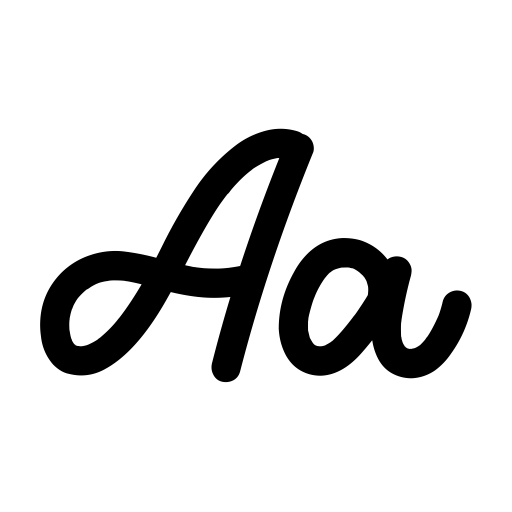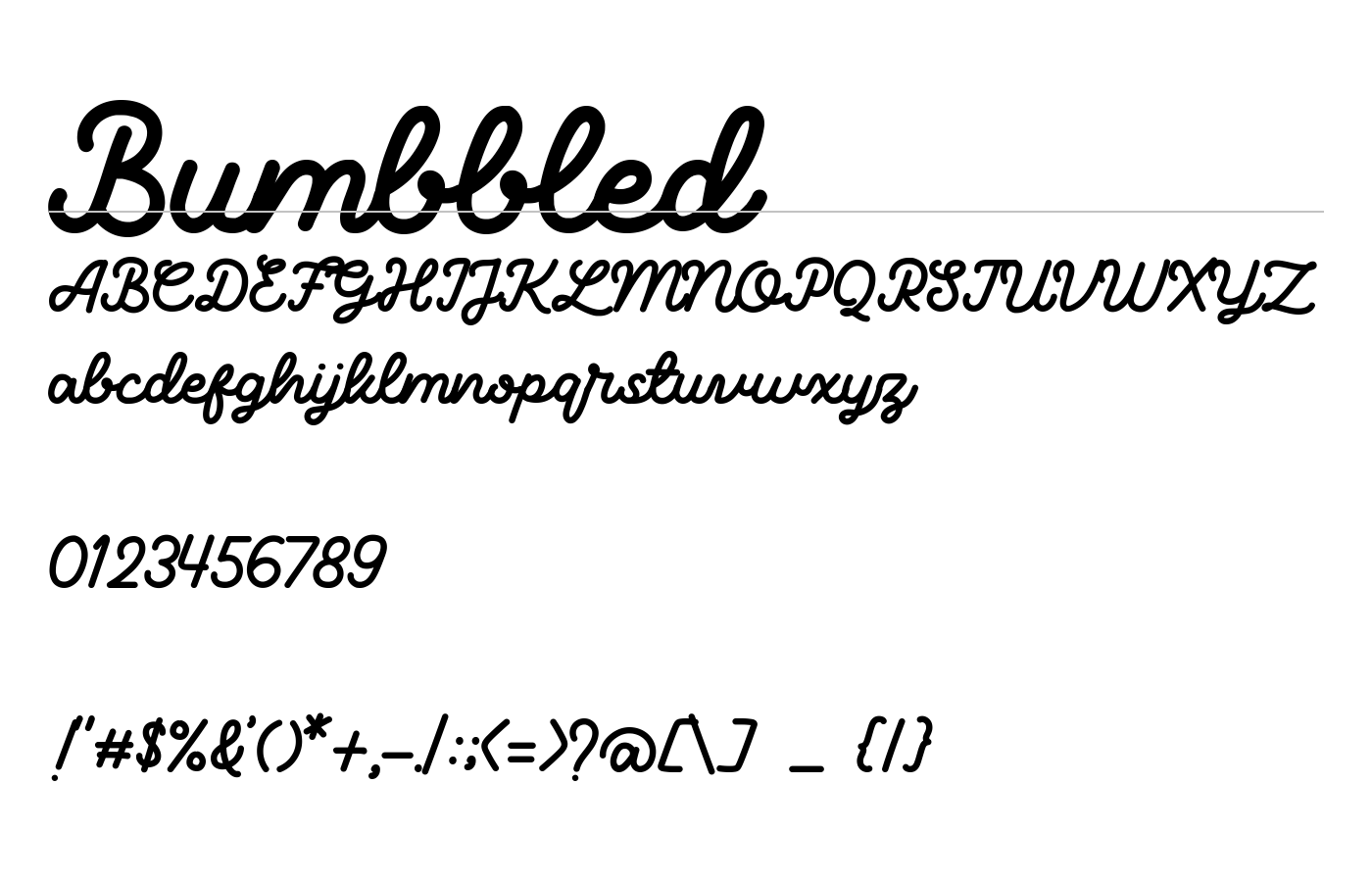
Bumbbled is a lively, bold script font with smooth, rounded strokes and a playful, informal charm. Its connected letterforms and moderate x-height make it perfect for inviting headlines, branding, and packaging that seek a friendly yet distinct personality. This font works well in creative projects where warmth and approachability are key, adding a handcrafted feel without sacrificing clarity.
Bumbbled Font